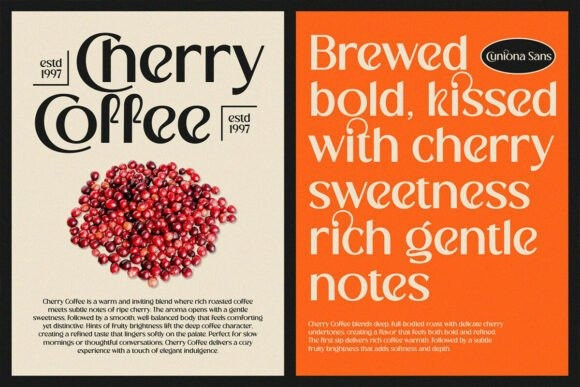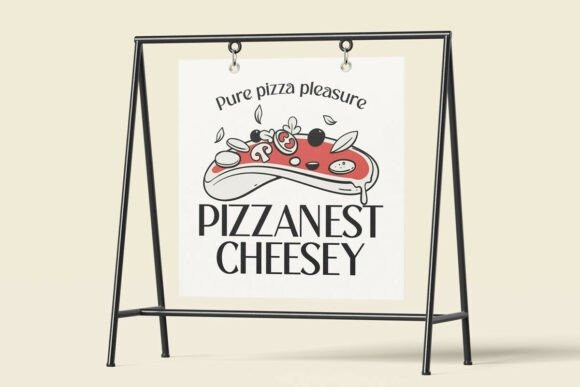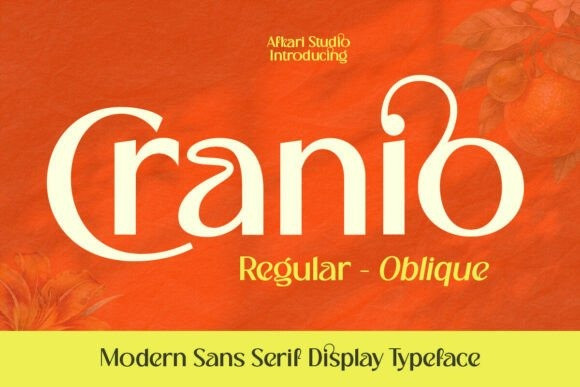
Cranio Font
Cranio Font is a modern sans serif display font designed to deliver clean impact, bold clarity, and contemporary style. Built with balanced proportions and strong geometric structure, Cranio offers a sleek and professional look that fits perfectly into today’s branding and digital design trends. Its sharp edges and confident letterforms make it an ideal choice for high-visibility typography.
This modern sans serif display font works exceptionally well for logo design, tech branding, startup identities, posters, social media graphics, thumbnails, advertising campaigns, packaging, and editorial headlines. Cranio is crafted to stand out at large sizes while maintaining excellent readability and structure.